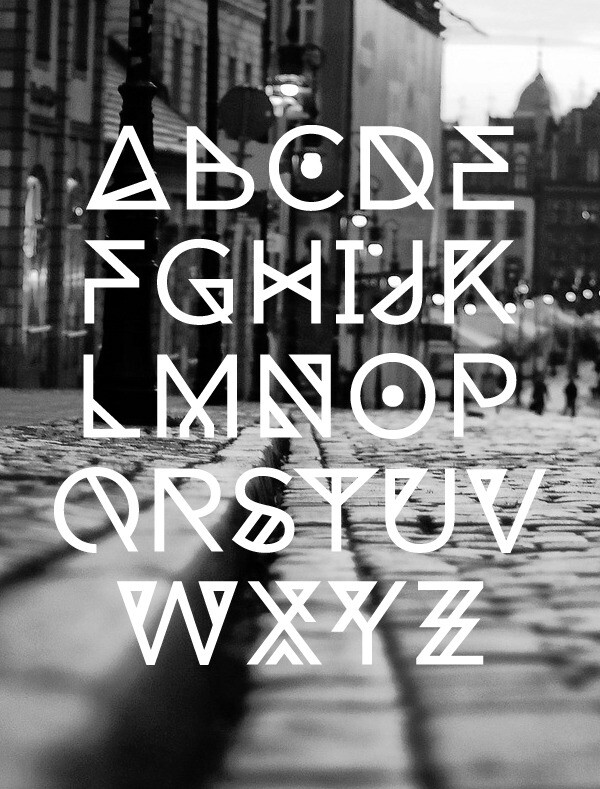
Dia Display Font is a free futuristic techno font crafted & designed by Tommy Larsen. This cool font is complete with Uppercase, Numeric & symbols. This very strong and sharp font is perfect for titles, typography, posters, magazines, brochures, packaging, Websites and much more for your design needs, making your designs more modern and professional.